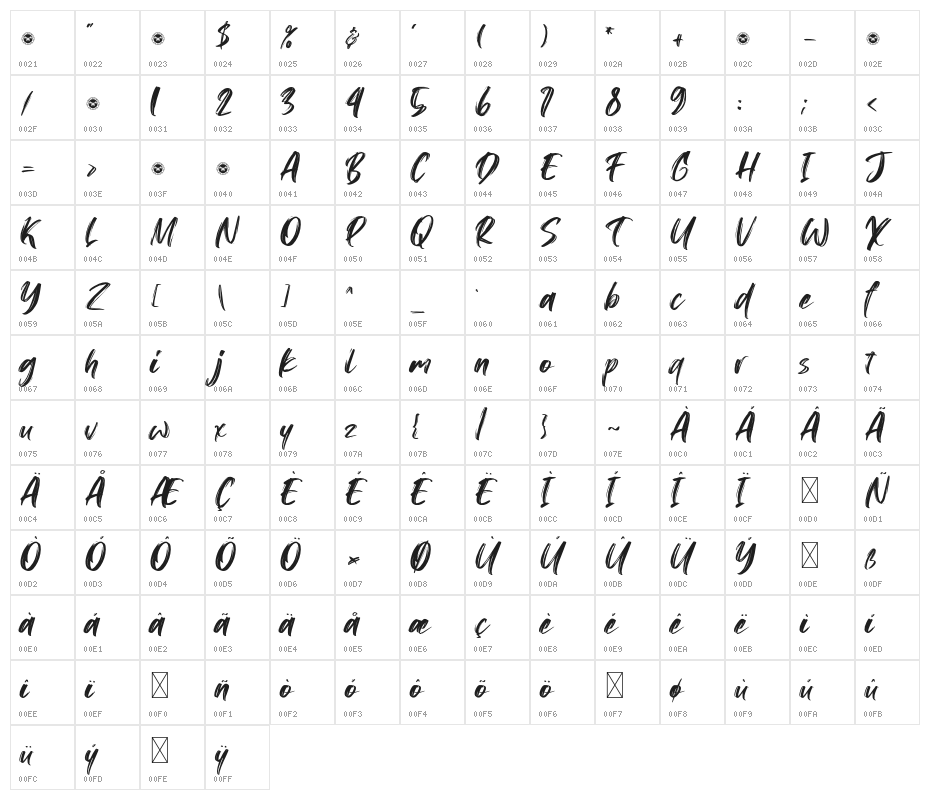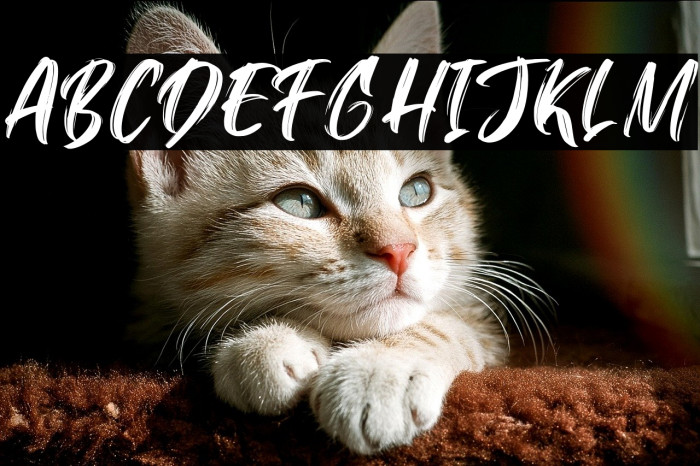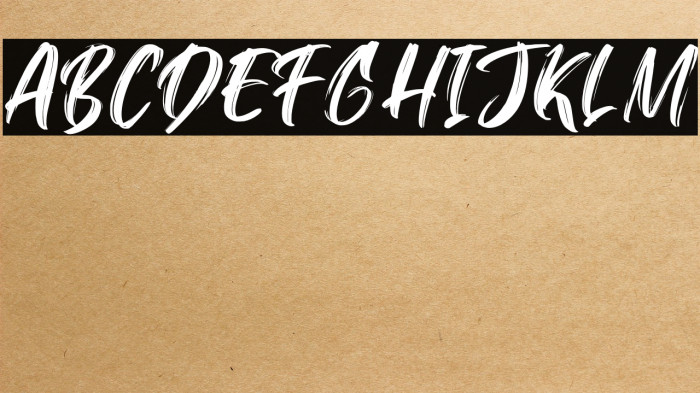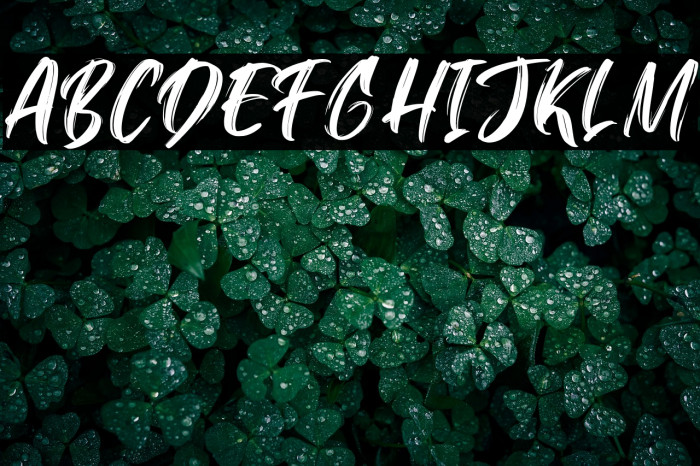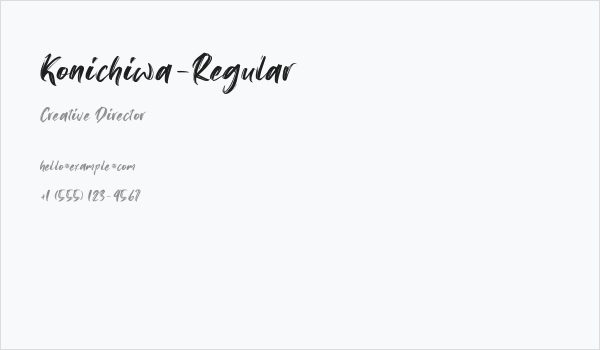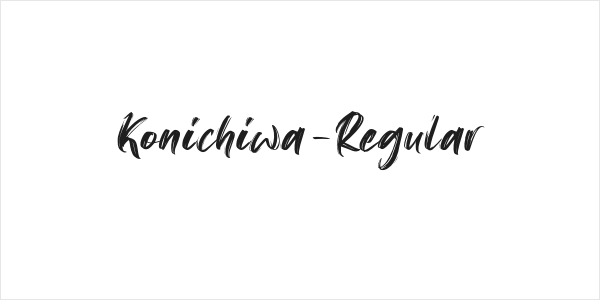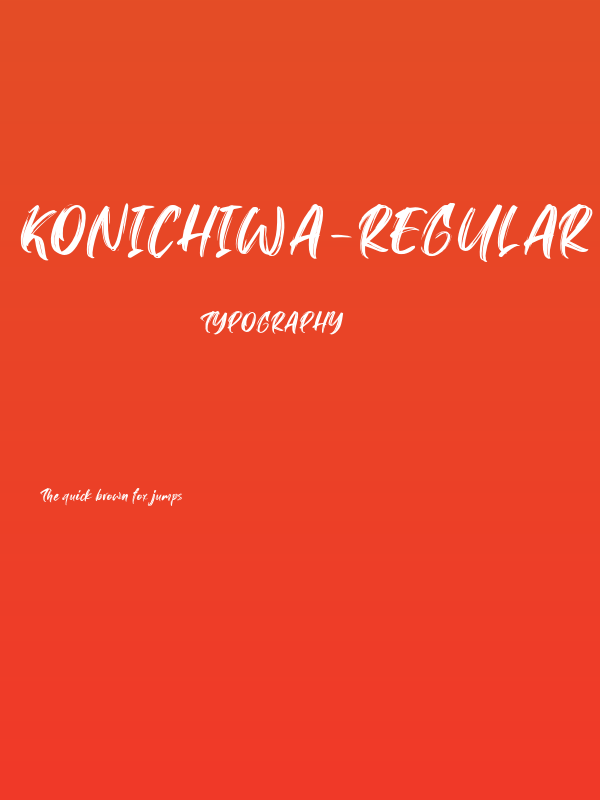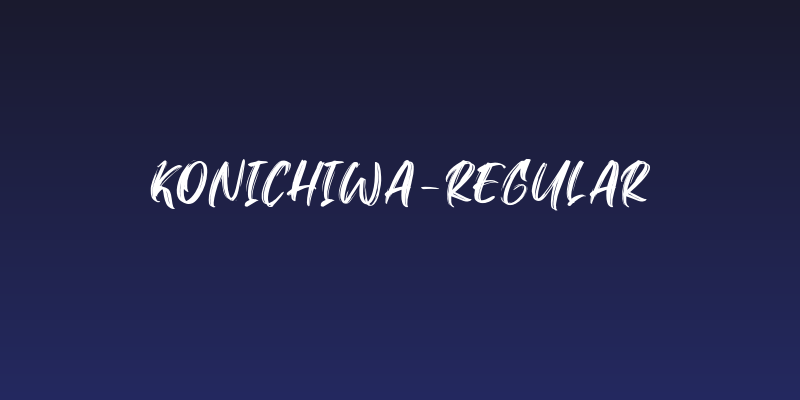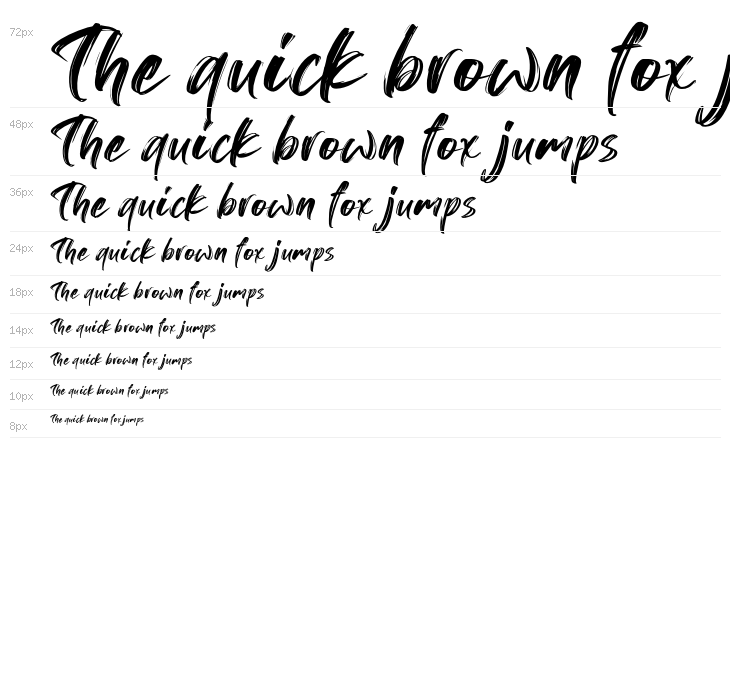
Konichiwa-Regular Font
Konichiwa-Regular Description
This font features a dynamic and expressive brush script style, characterized by its fluid and energetic strokes. The letters are crafted with a sense of movement, giving them a lively and artistic appearance. The uppercase and lowercase letters maintain a consistent flow, with varying stroke widths that add to the font's visual interest. The numerals and special characters are designed to match the overall style, ensuring a cohesive look across all glyphs. This font is ideal for projects that require a personal and creative touch, such as invitations, posters, and branding materials.